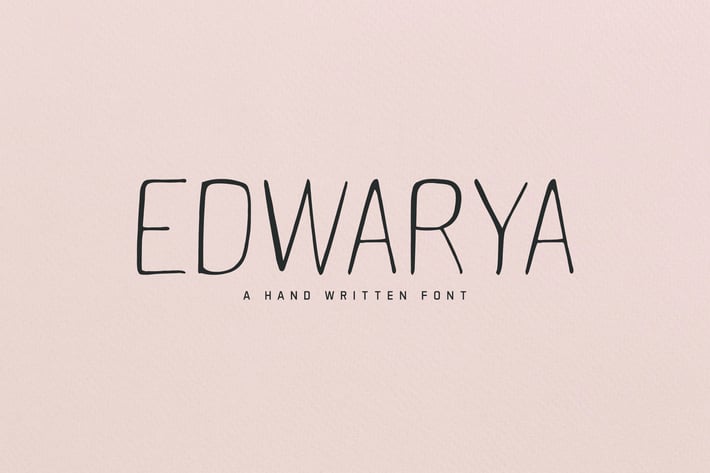
Edwarya Sans Serif Font
Edwarya is a cute, lovely and versatile handmade font that will provides a perfect handmade touch into your upcoming projects. It contains complete basic glyphs with multilingual support. Aaydan will be perfect for packaging, presentations, logo, headlines, lettering, posters, branding, quotes, titles, magazines headings, web layouts, advertising, invitations, packaging design, books, and nearly any creative design.
Aaydan Font Features:
- Uppercase Letters
- Lowercase Letters
- Non English Characters ( Latin Supplement + Latin Extended A)